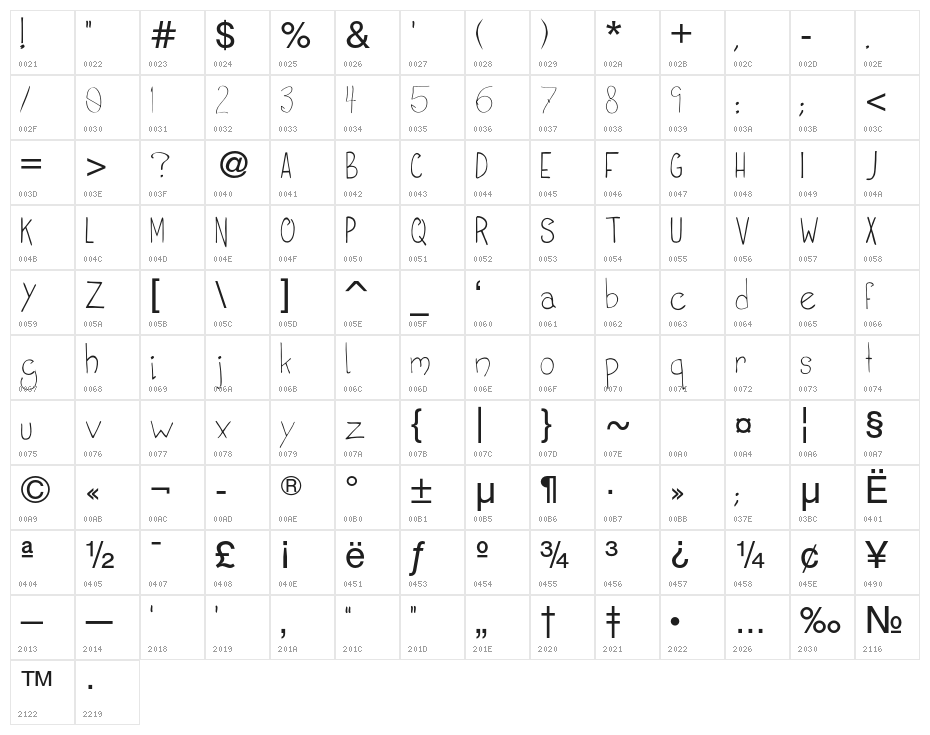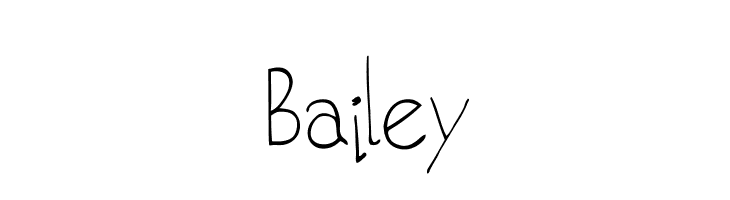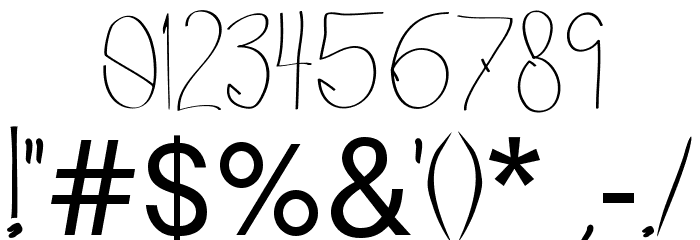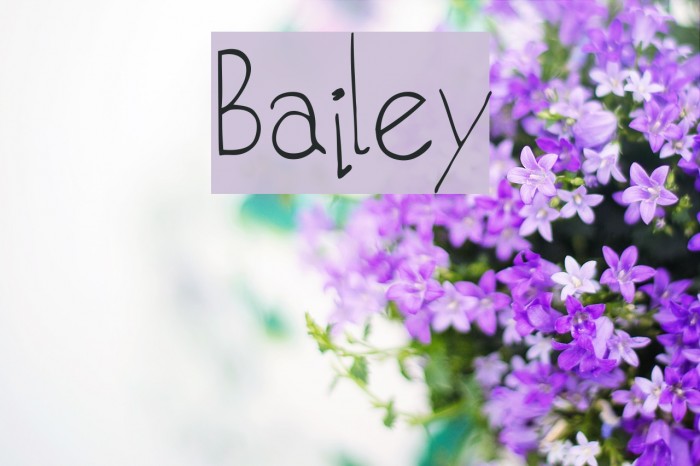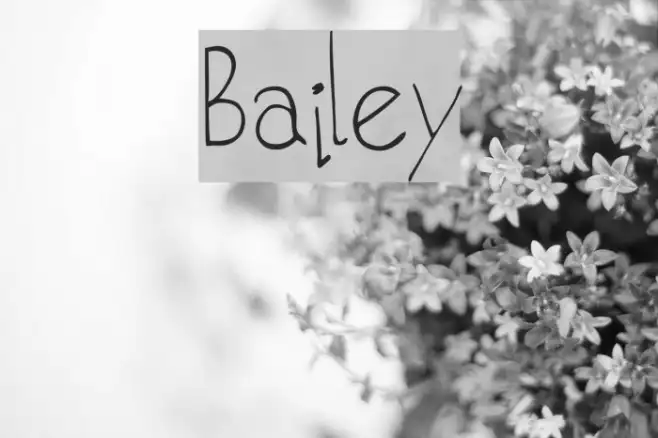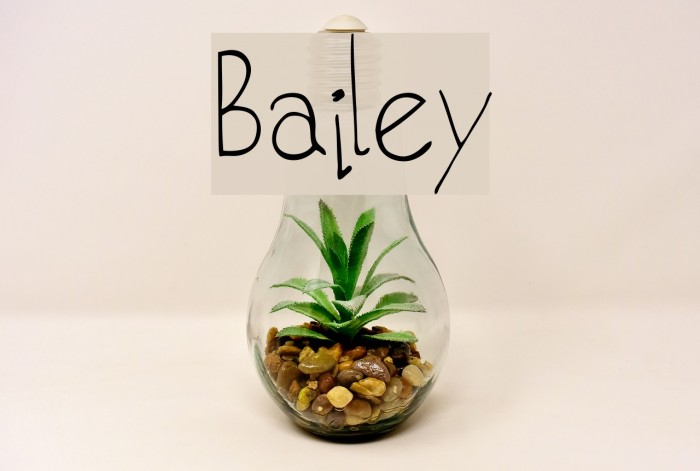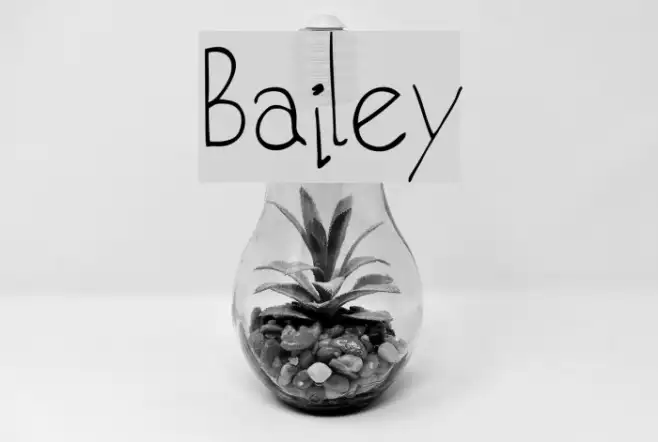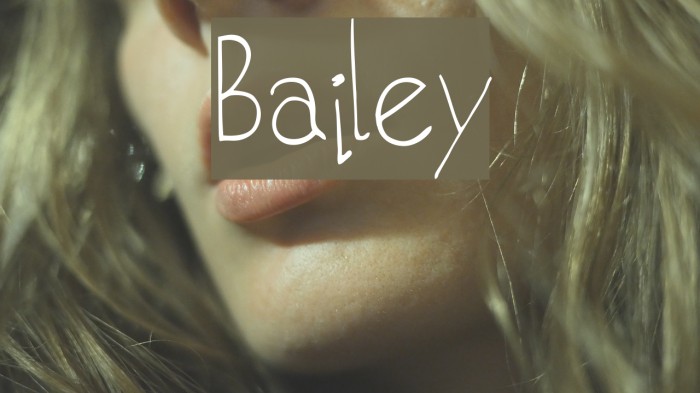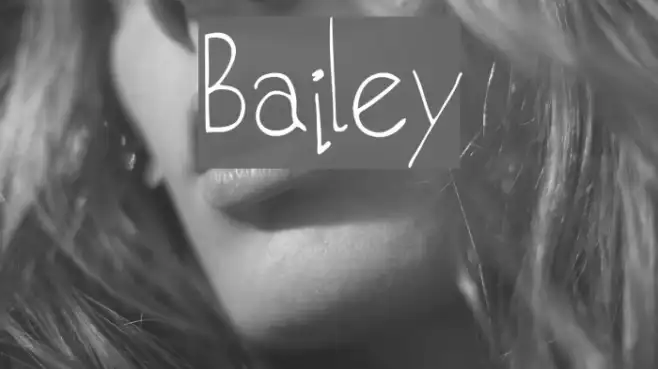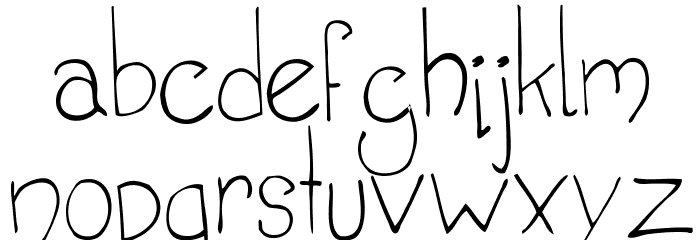
Bailey Font
Bailey Description
This font features a playful and whimsical design, characterized by its tall, narrow letterforms and slightly irregular strokes. The uppercase letters are distinct with their elongated shapes, while the lowercase letters maintain a consistent style that complements the uppercase. The numerals and special characters follow the same quirky aesthetic, adding a unique touch to any text. The overall appearance is casual and friendly, making it suitable for projects that require a personal or informal tone. The strokes are consistent in width, providing a clean and legible look.
| Proposed Projects | Ideal for children's books, greeting cards, playful branding, and informal invitations. |